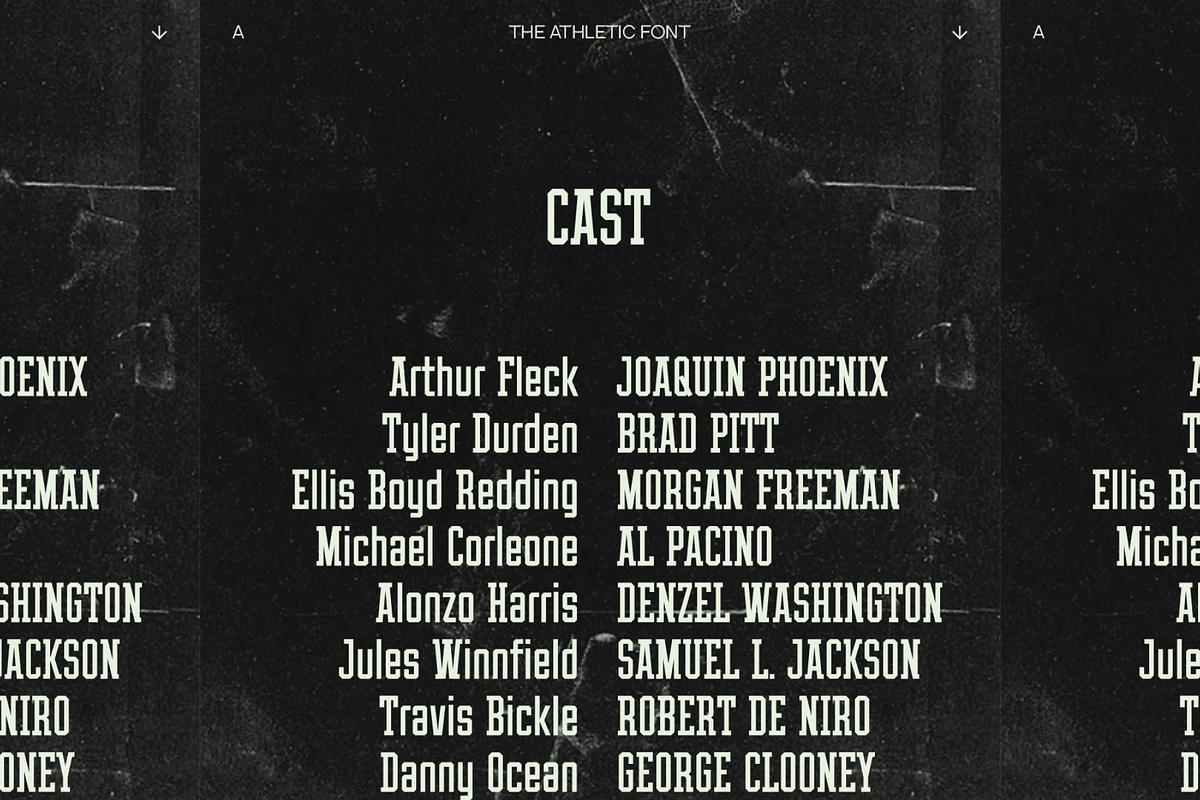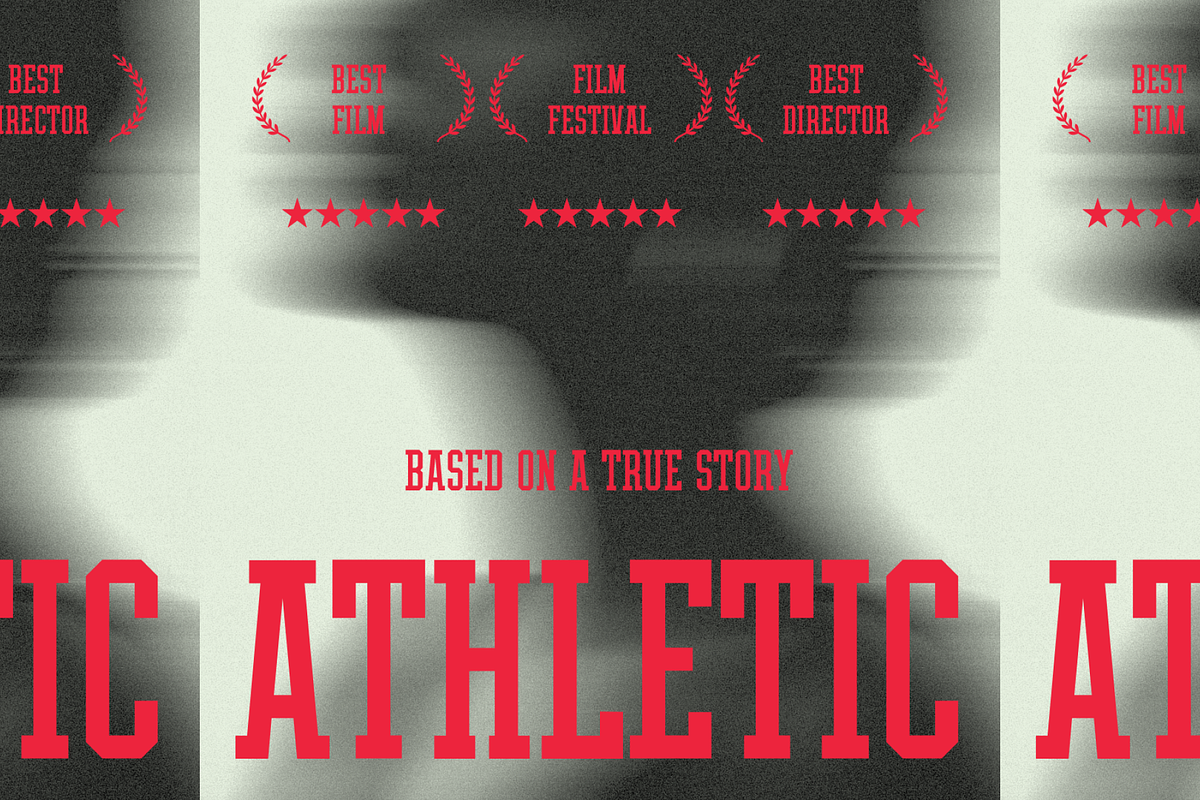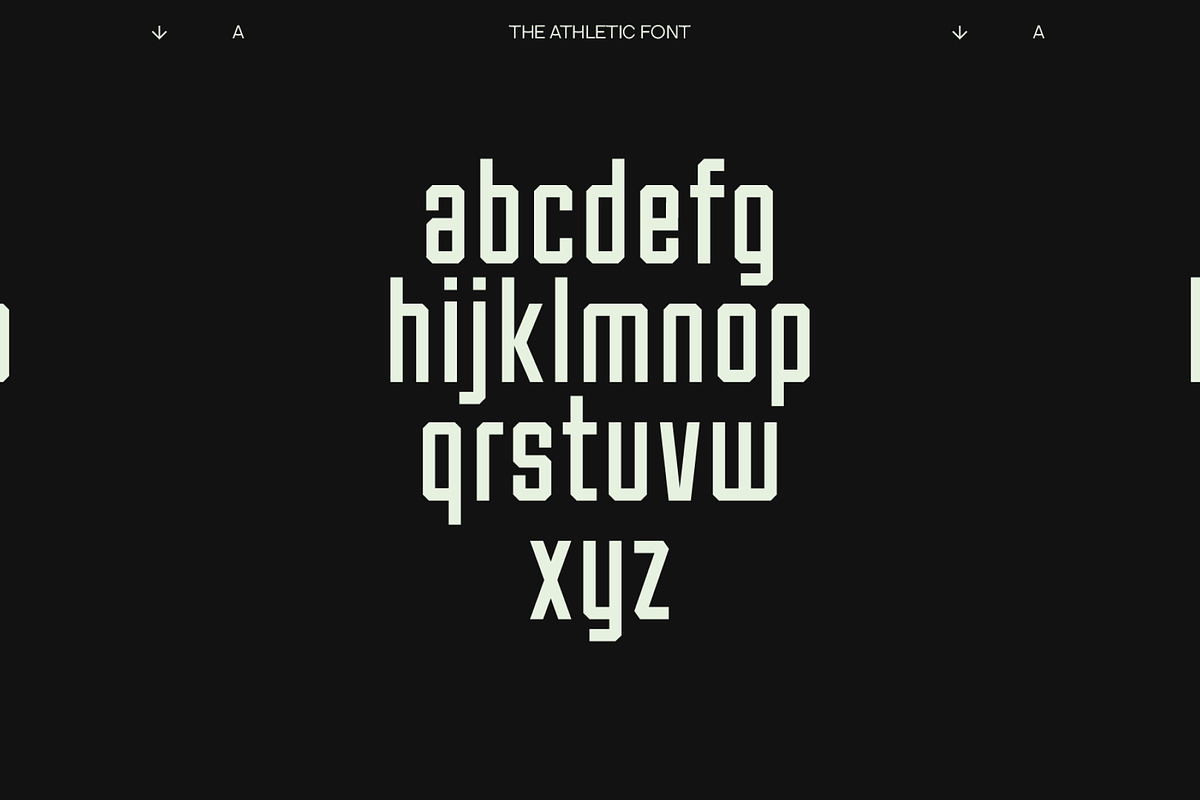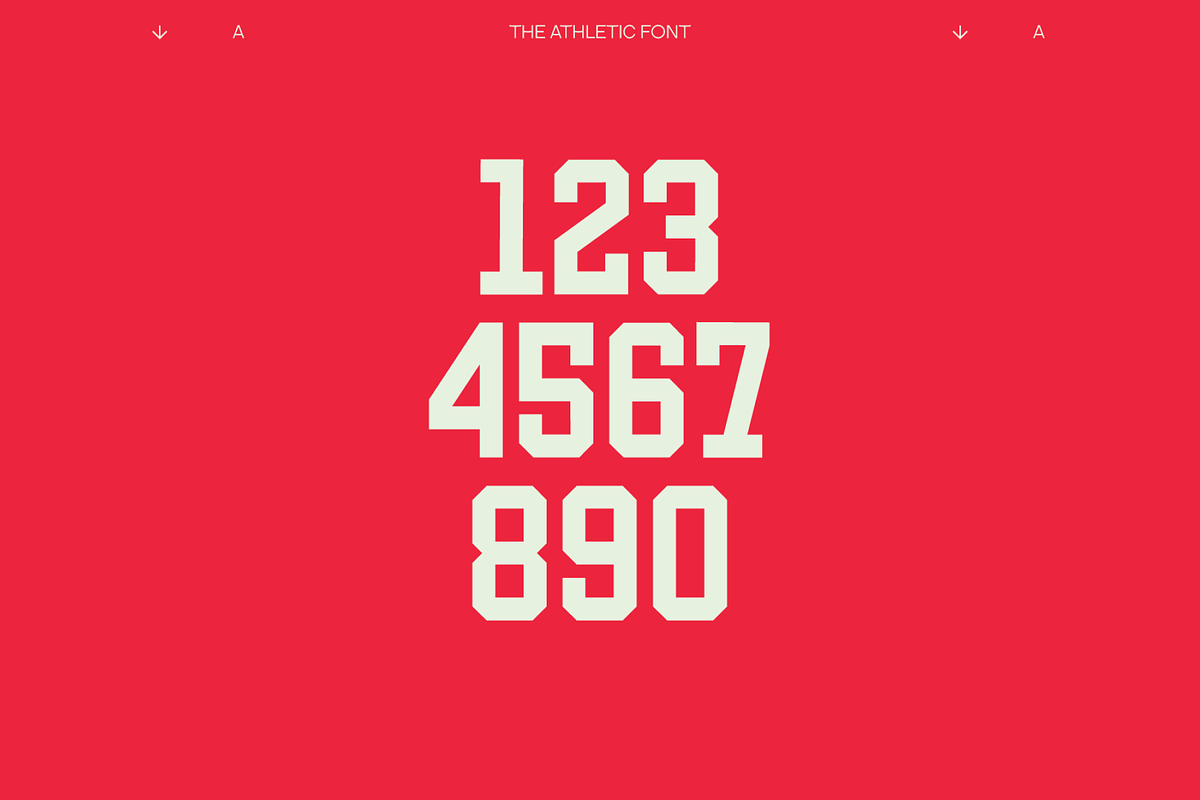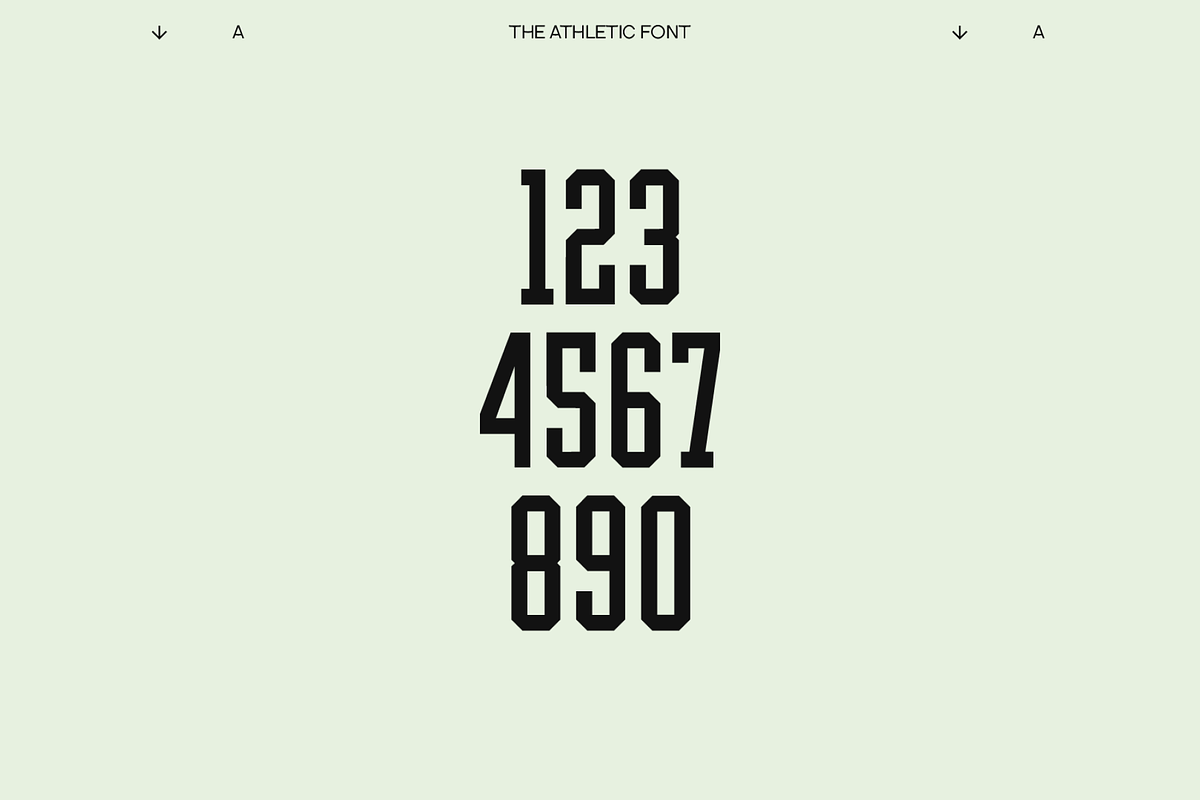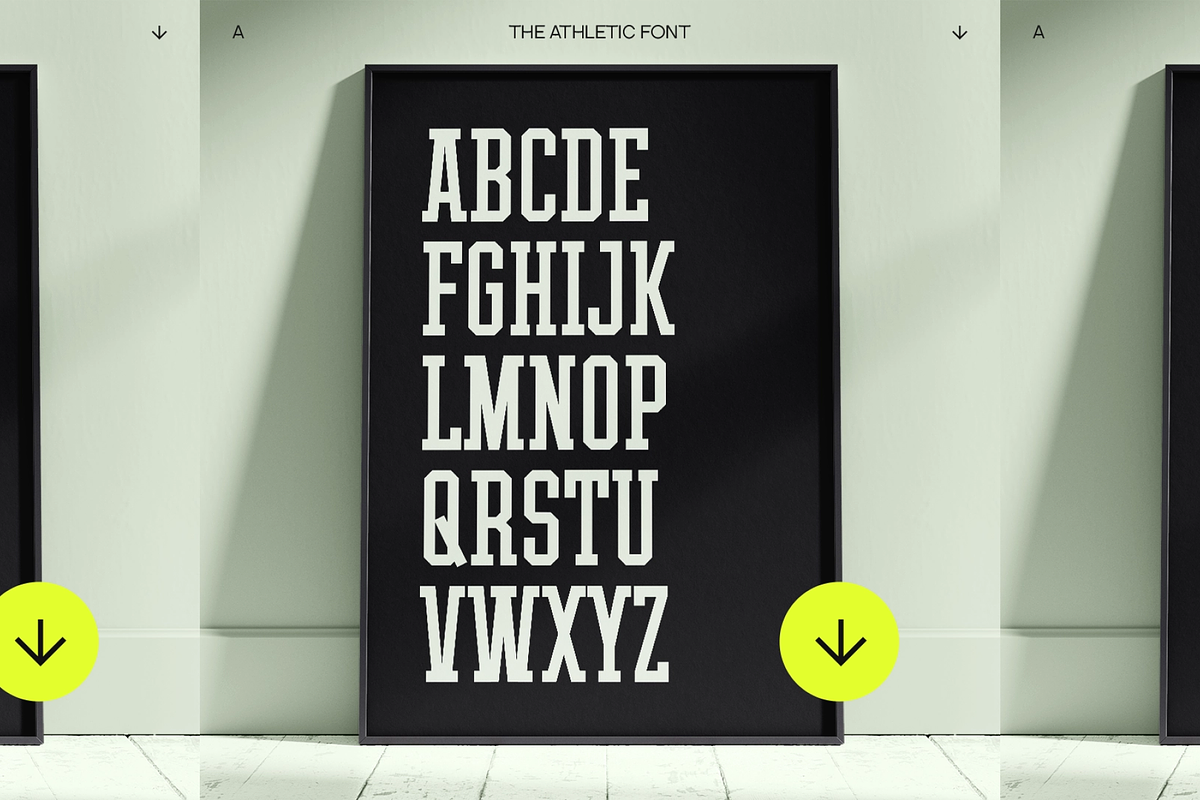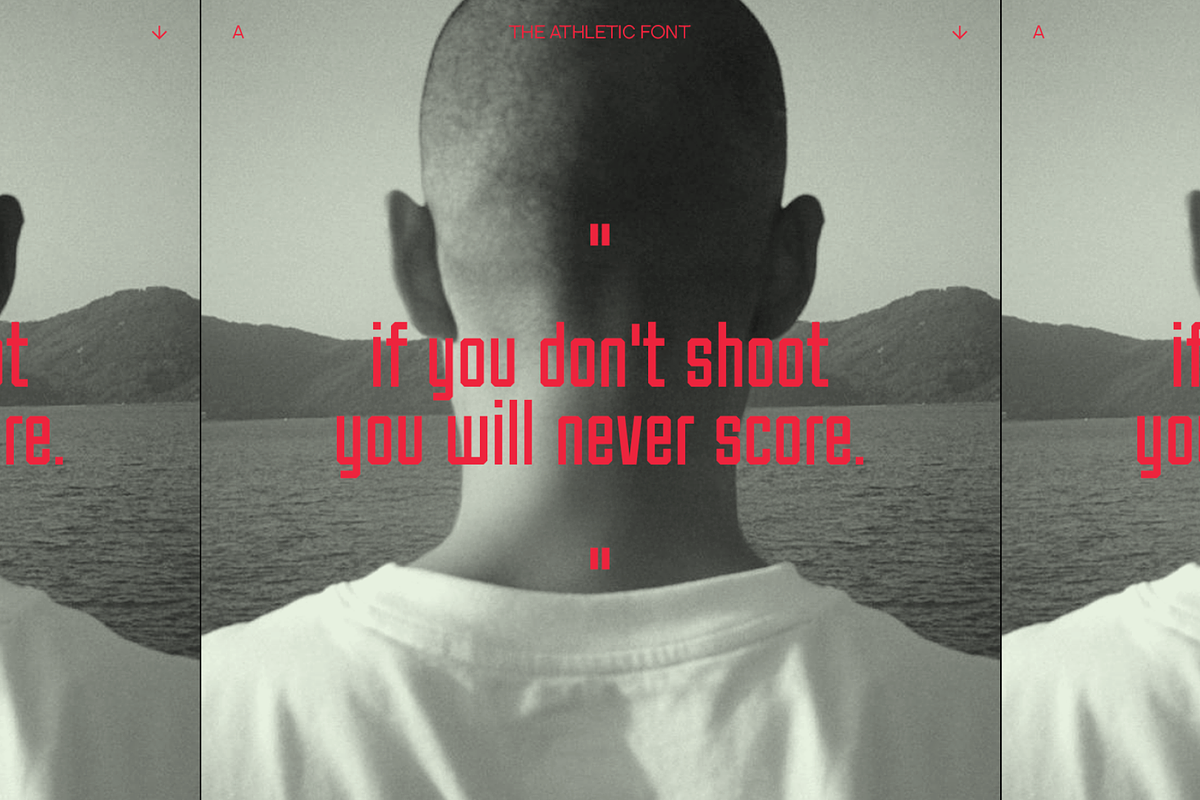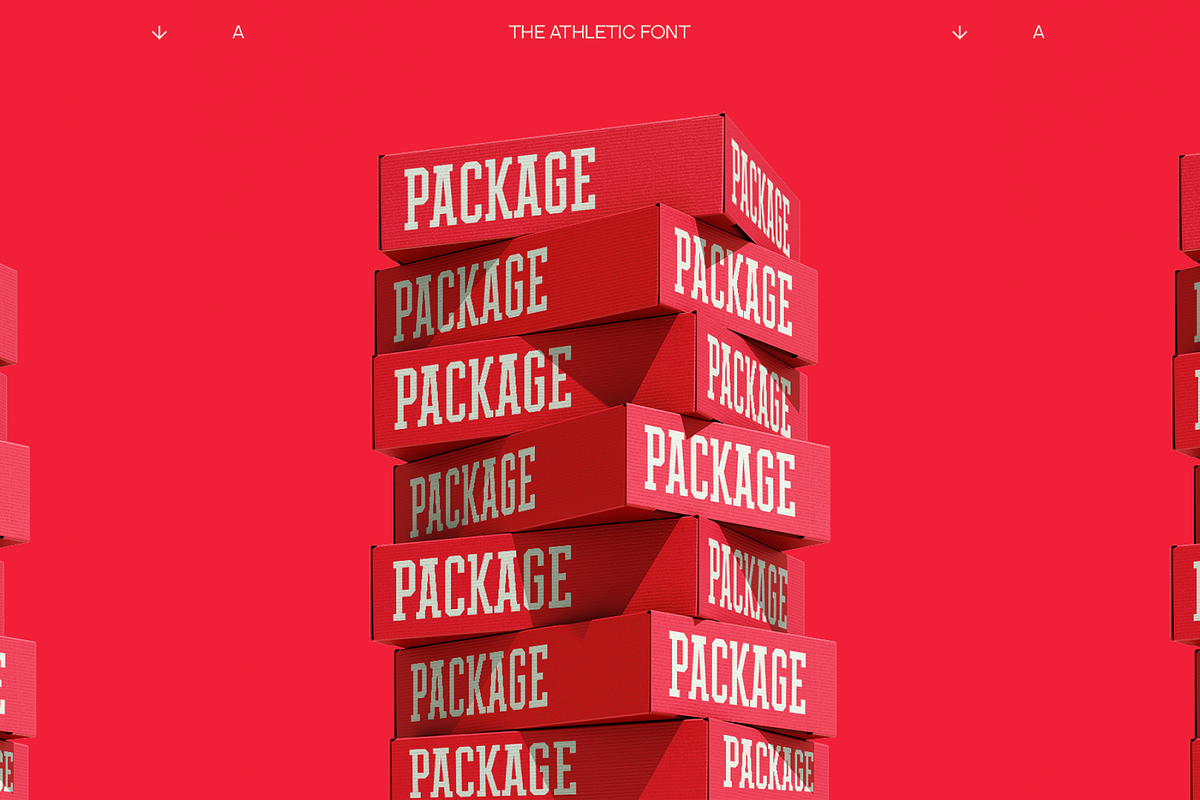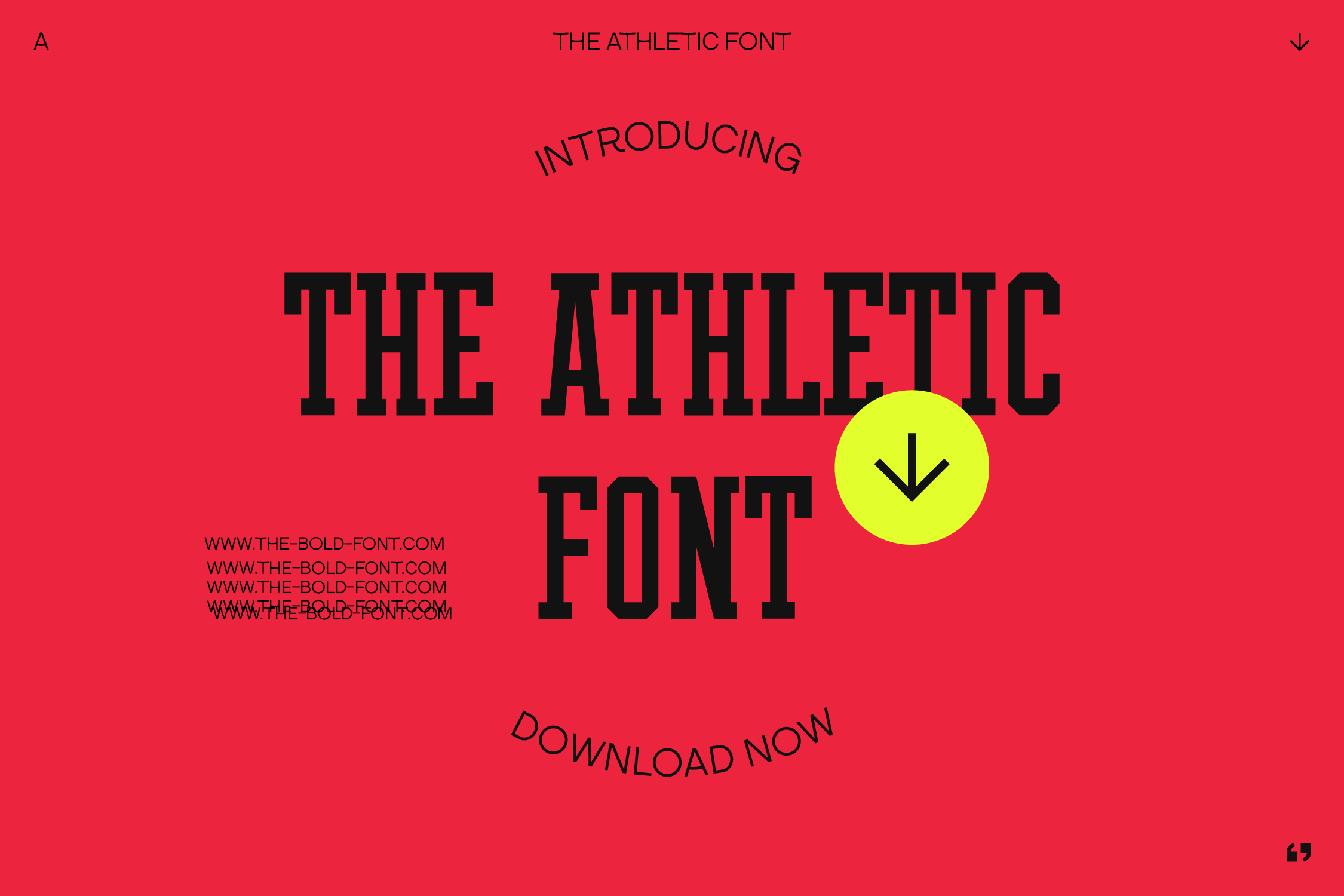
THE ATHLETIC FONT
THE ATHLETIC FONT is a sports typography powerhouse, inspired by the golden era of basketball and iconic sports branding. With a look reminiscent of vintage team jerseys, stadium banners, and high-energy game nights, this font channels the spirit of champions. Whether you're designing for basketball, football, or any high-impact sports brand, THE ATHLETIC FONT brings an electrifying presence to your typography.